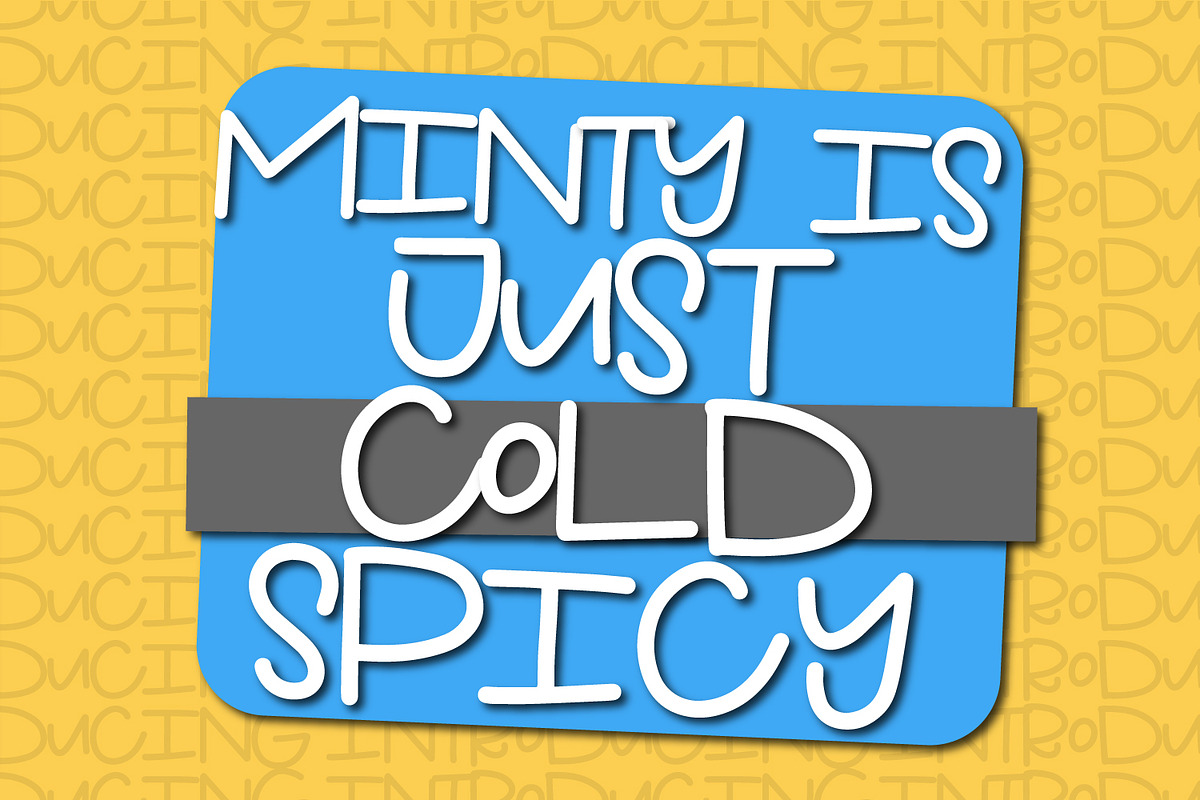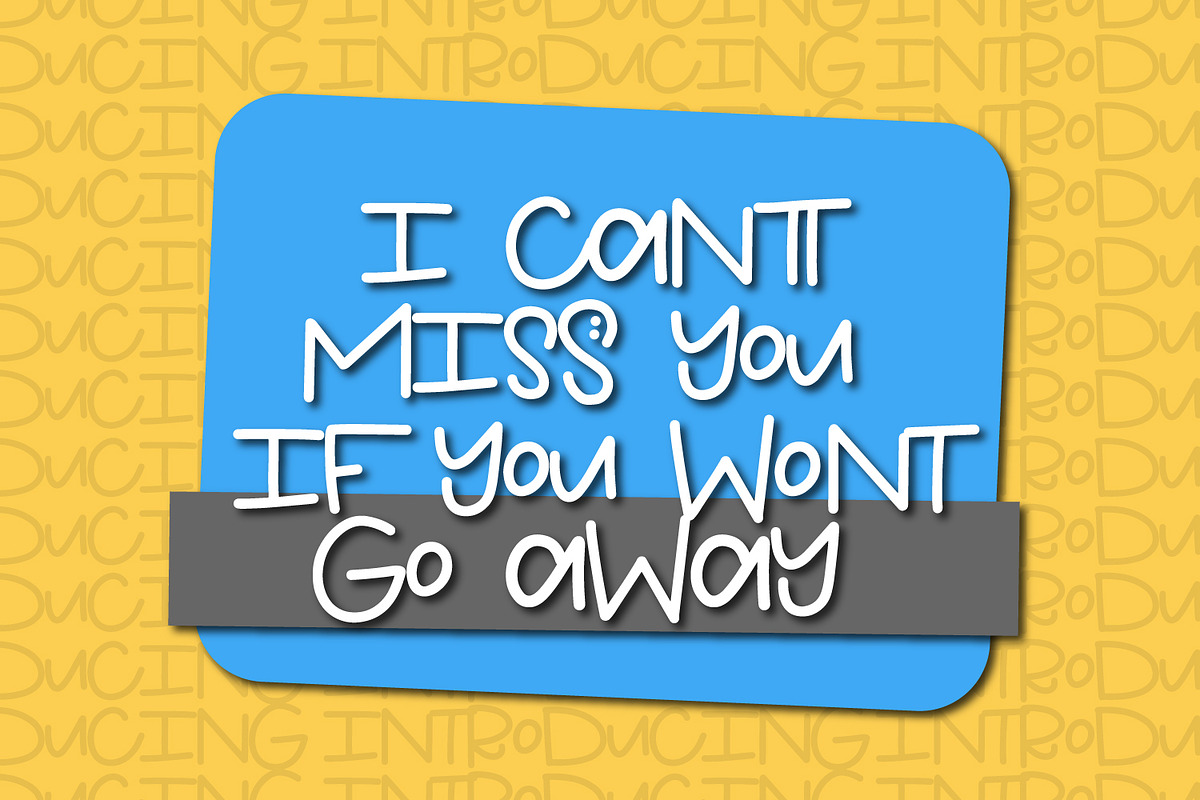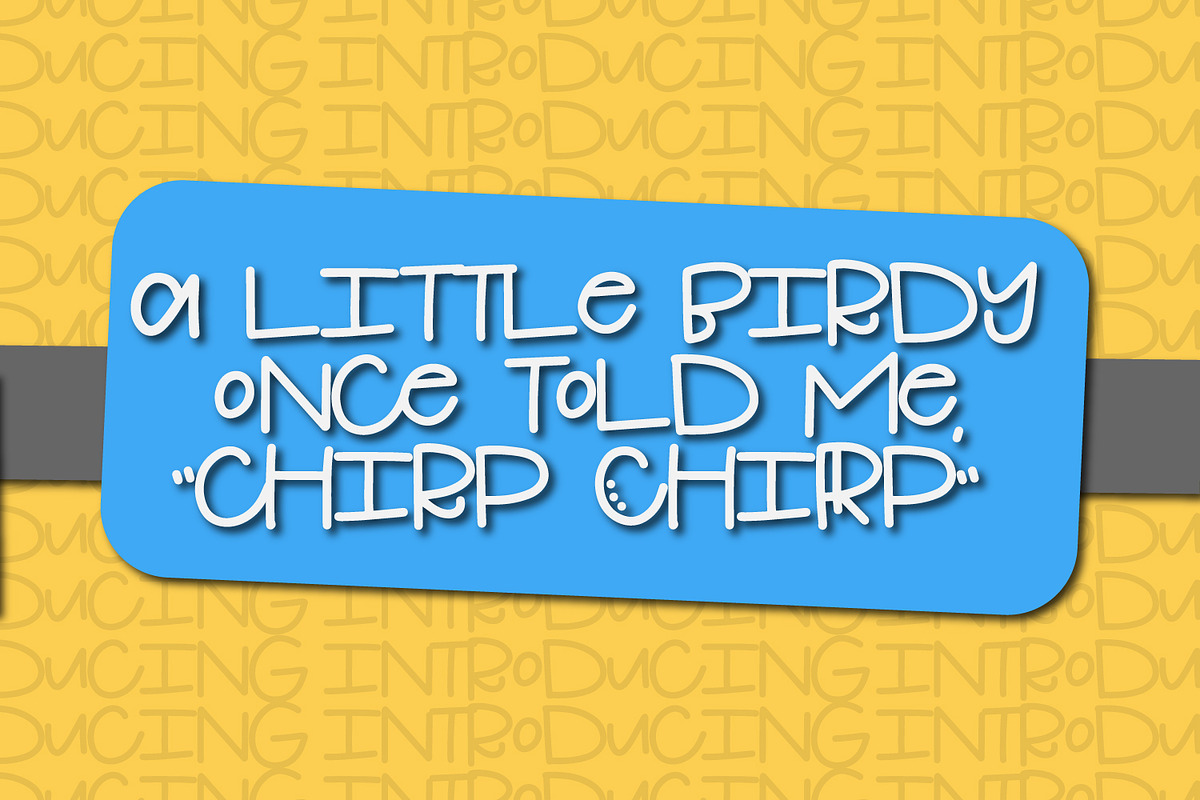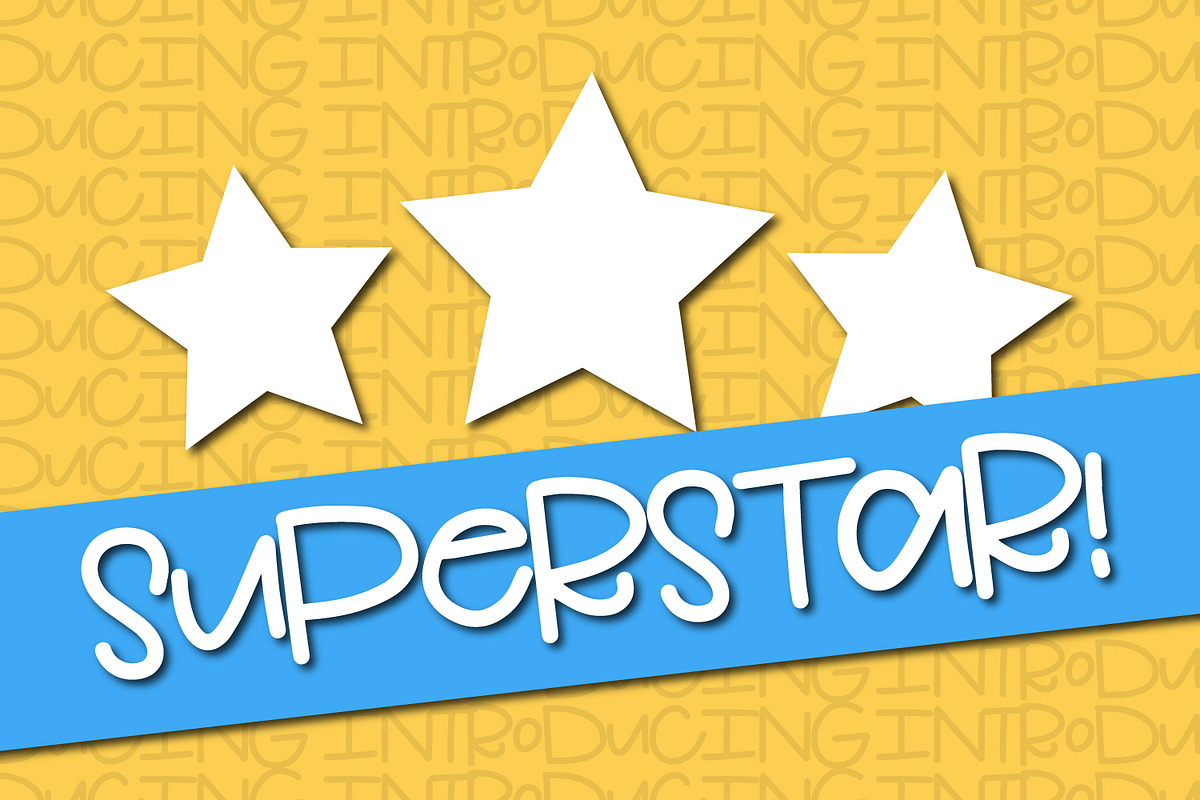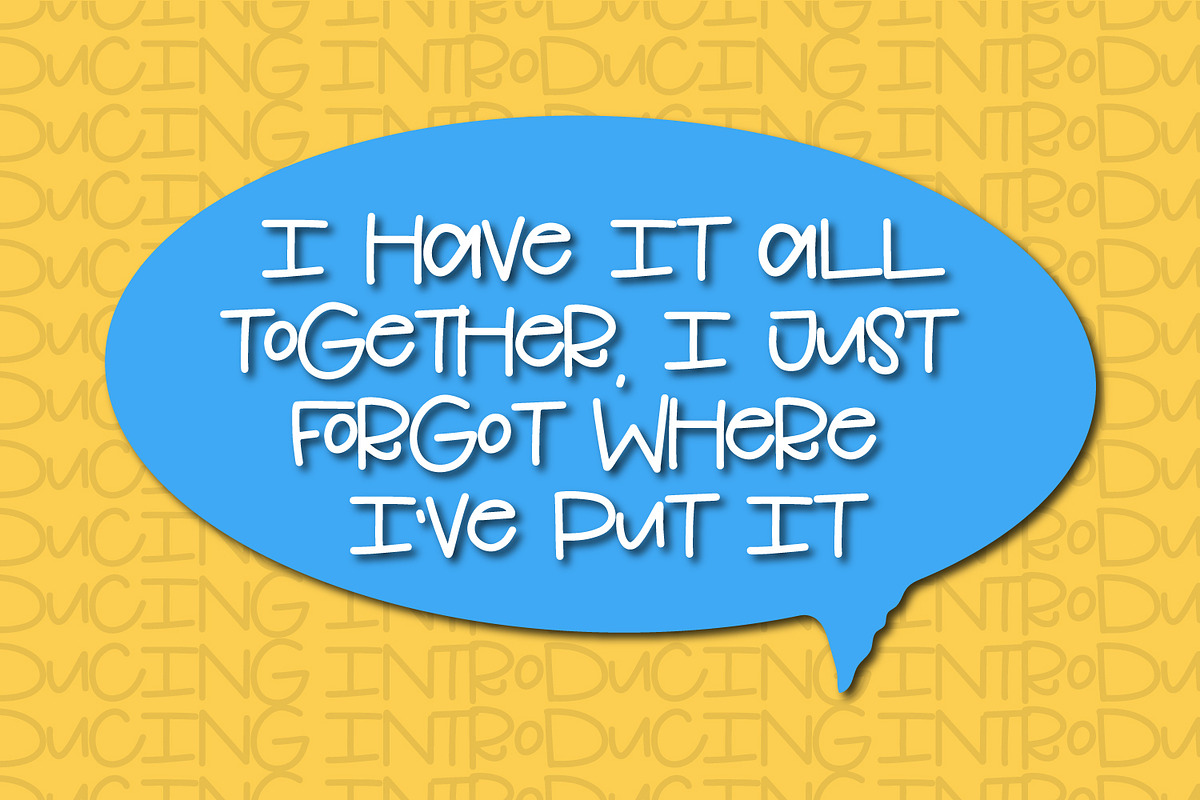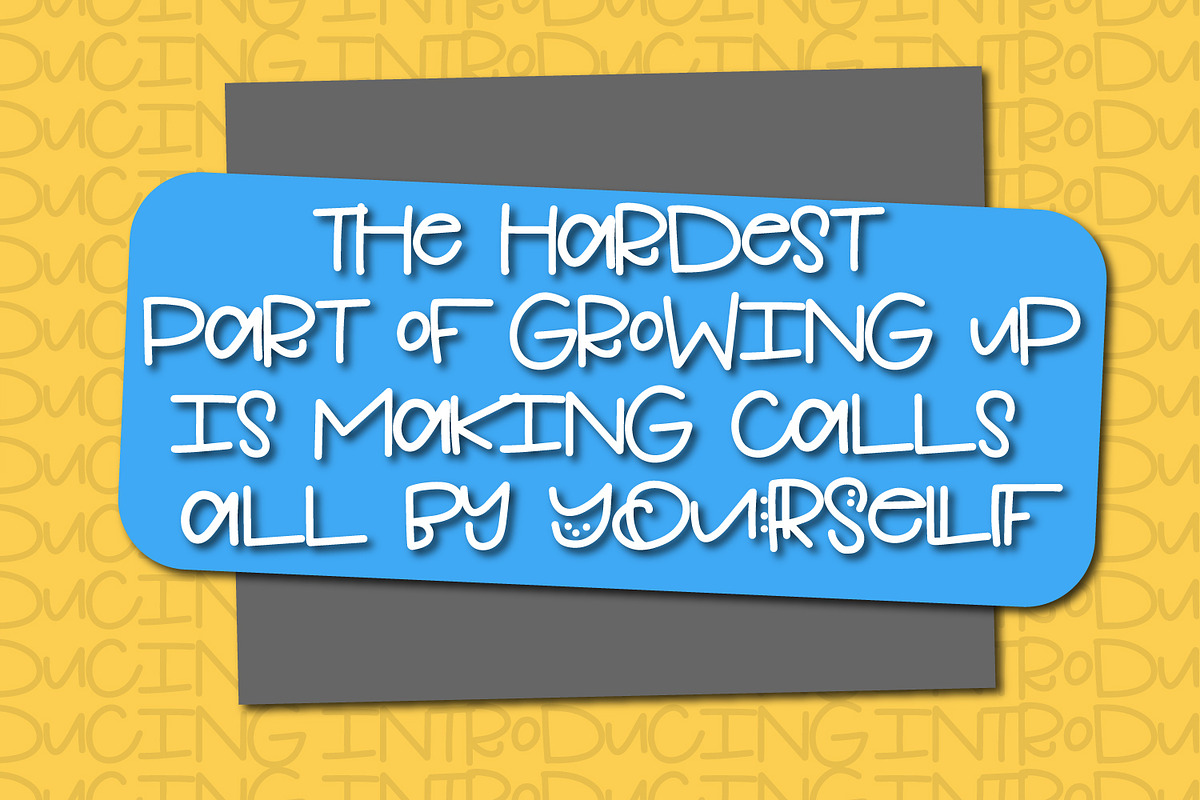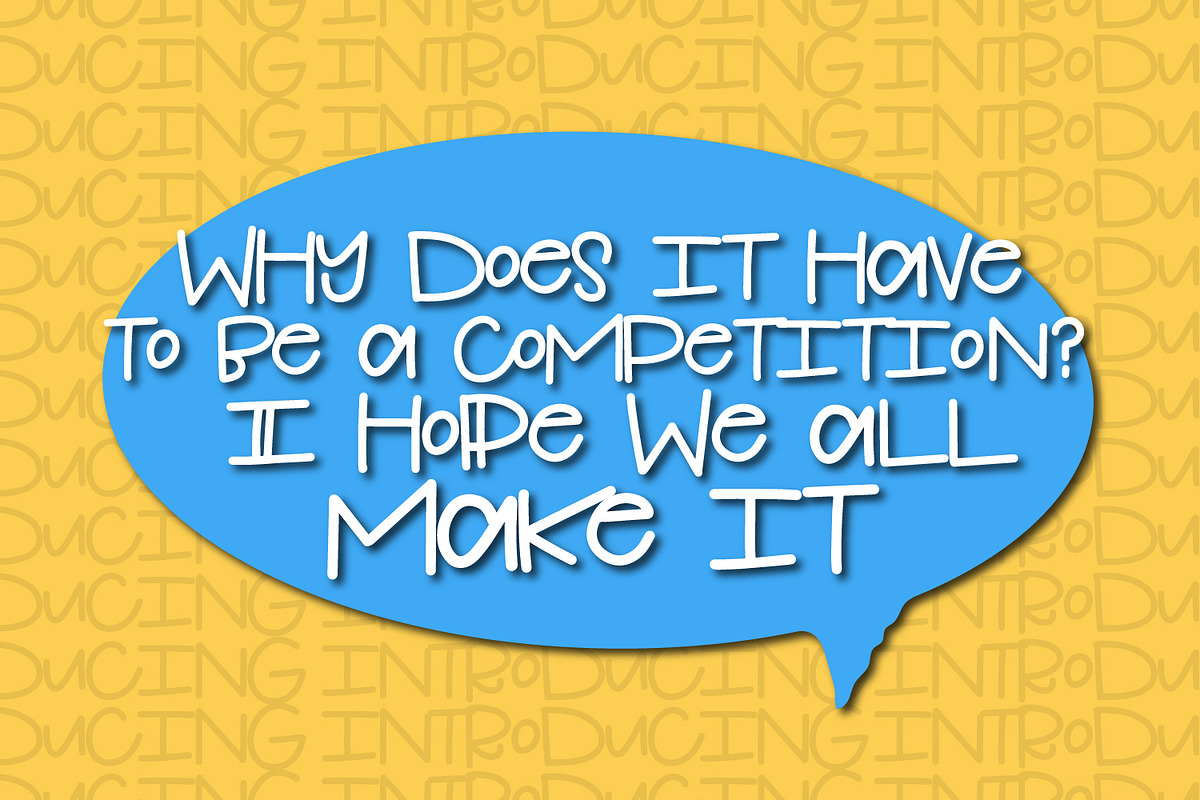
Cranberry Pinecones - A Bouncy Font
Why Cranberry Pinecones - A Bouncy Font is worth a look
Cranberry Pinecones - A Bouncy Font by CraftyLittleNodes fits naturally into Branding, posters, packaging, typography.